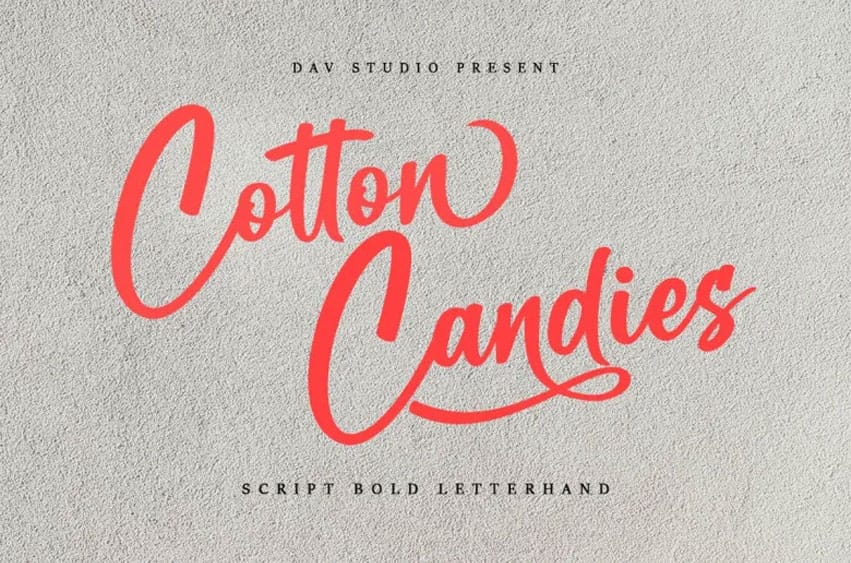
Cotton Candies Font is a fun and fresh calligraphy font with a bold script and a special character set and Open-type which provides various alternatives for the letters, making it easier for creating beautiful letters!
Cotton Candies is a perfect tool that will help to create logotypes and lettering compositions for wedding invitations, fashion, magazine covers, book typography, packaging, cards, posters, branding, and much more.